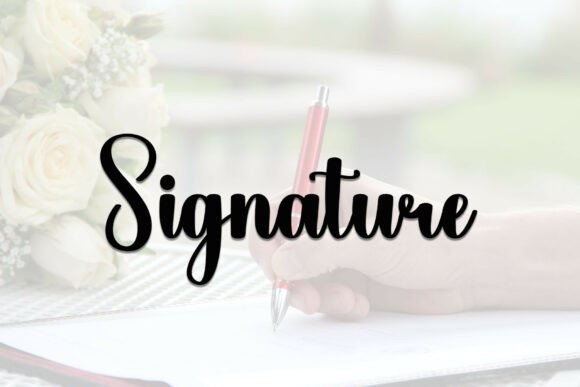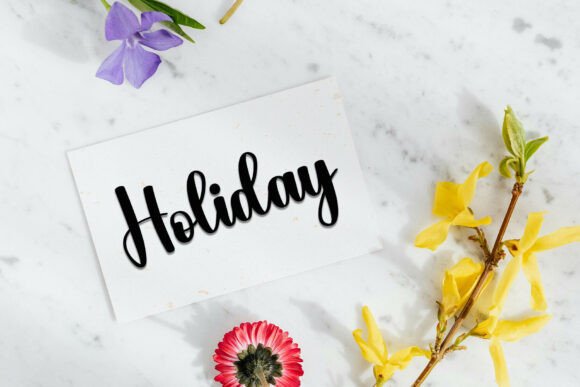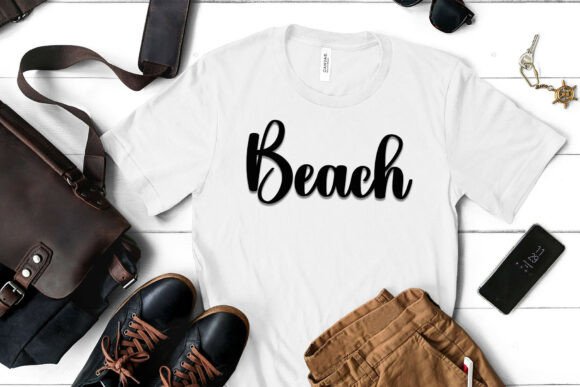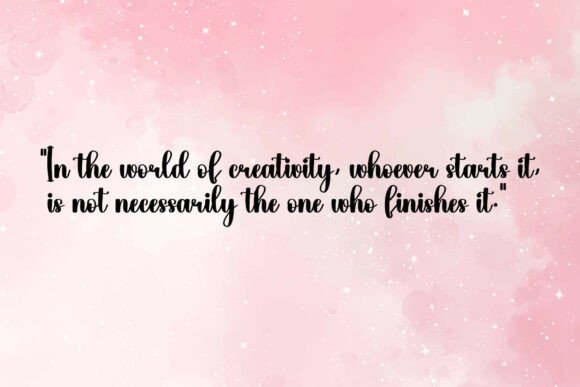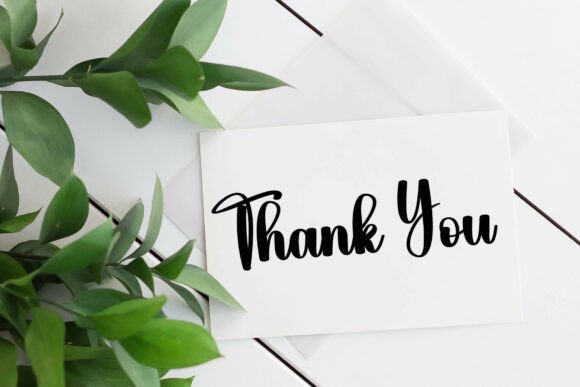
Introducing Costume Font: The Sweet and Elegant Handwritten Font for Designers
Are you a designer or crafter looking for a font that can add a touch of elegance and romance to your projects? Look no further than Costume Font, a beautiful and versatile handwritten font that is perfect for a wide range of design applications. In this article, we’ll take a closer look at the features and benefits of Costume Font, and explore how you can use it to elevate your designs.
What is Costume Font?
Costume Font is a sweet and cursive handwritten font that is designed to add a touch of whimsy and romance to your designs. With its gentle and flowing lines, this font is perfect for creating elegant and sophisticated designs that are sure to impress. Whether you’re working on a branding project, a wedding invitation, or a fashion lookbook, Costume Font is the perfect choice.
Key Features of Costume Font
So what makes Costume Font so special? Here are just a few of its key features:
- Sweet and cursive design: Costume Font features a beautiful, cursive design that is both elegant and playful.
- Handwritten feel: This font has a warm, handwritten feel that is perfect for creating designs that feel personal and unique.
- Versatile: Costume Font is perfect for a wide range of design applications, from branding and logos to wedding invitations and greeting cards.
- Elegant and romantic: This font adds a touch of elegance and romance to any design, making it perfect for projects where you want to create a sense of sophistication and glamour.
- Casual and approachable: Despite its elegant feel, Costume Font is still a casual and approachable font that is perfect for designs where you want to create a sense of friendliness and approachability.
How to Use Costume Font in Your Designs
Costume Font is a versatile font that can be used in a wide range of design applications. Here are just a few ideas to get you started:
- Branding and logos: Use Costume Font to create a beautiful and elegant logo that reflects your brand’s personality and style.
- Wedding invitations and things: This font is perfect for creating beautiful and romantic wedding invitations, save-the-dates, and other wedding-related designs.
- Greeting cards: Use Costume Font to create beautiful and heartfelt greeting cards for special occasions like birthdays, anniversaries, and holidays.
- Fashion and lookbooks: This font is perfect for creating stylish and sophisticated fashion designs, including lookbooks, catalogs, and advertisements.
- Marketing and promotion: Use Costume Font to create eye-catching and effective marketing materials, including brochures, flyers, and social media graphics.
Why Choose Costume Font?
So why should you choose Costume Font for your next design project? Here are just a few reasons:
- Unique and elegant design: Costume Font features a unique and elegant design that is sure to stand out in any design project.
- Highly versatile: This font can be used in a wide range of design applications, making it a great addition to any designer’s toolkit.
- Easy to read and use: Despite its elegant feel, Costume Font is still easy to read and use, making it perfect for designs where you need to communicate a message clearly and effectively.
| Font Name | Costume Font |
In conclusion, Costume Font is a beautiful and versatile handwritten font that is perfect for designers and crafters who need to add a touch of elegance and romance to their projects. With its sweet and cursive design, this font is perfect for a wide range of design applications, from branding and logos to wedding invitations and greeting cards. Whether you’re looking to create a sophisticated and glamorous design or a friendly and approachable one, Costume Font is the perfect choice.